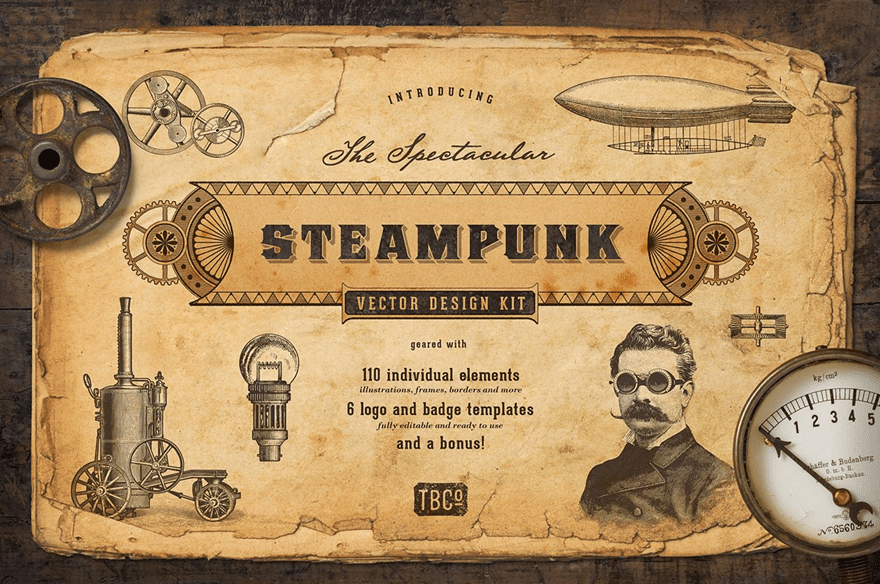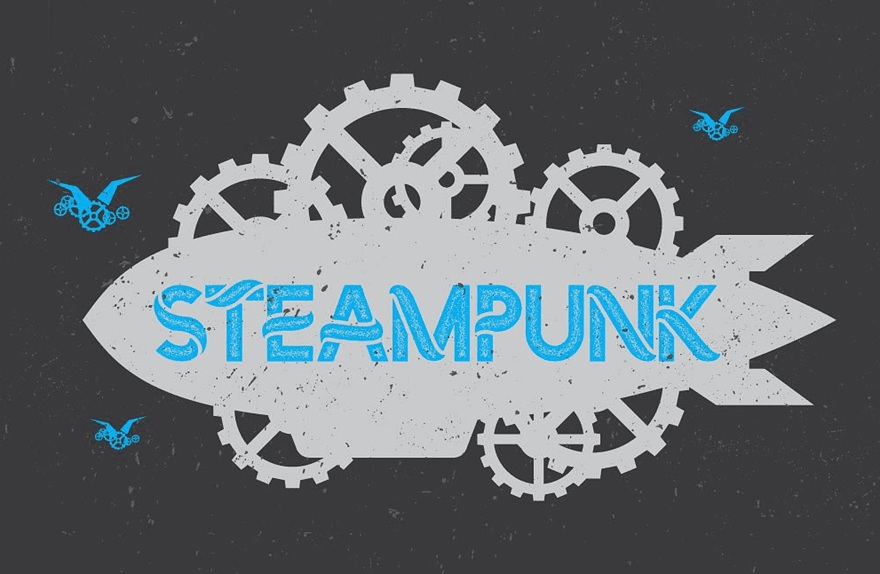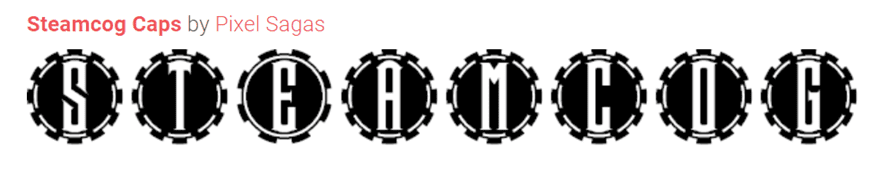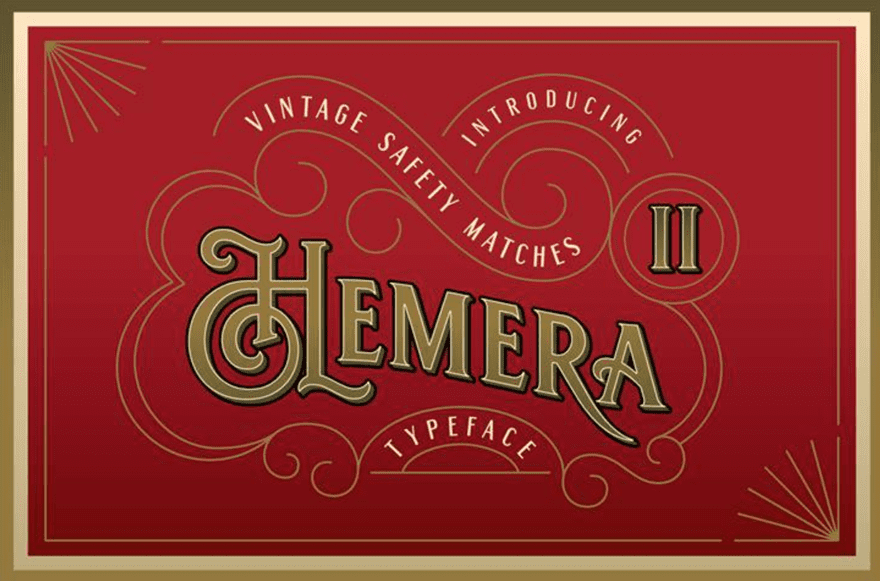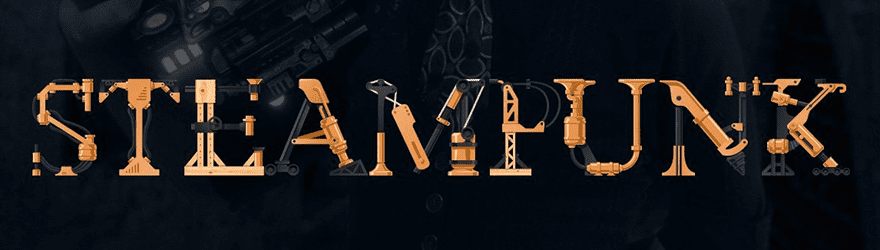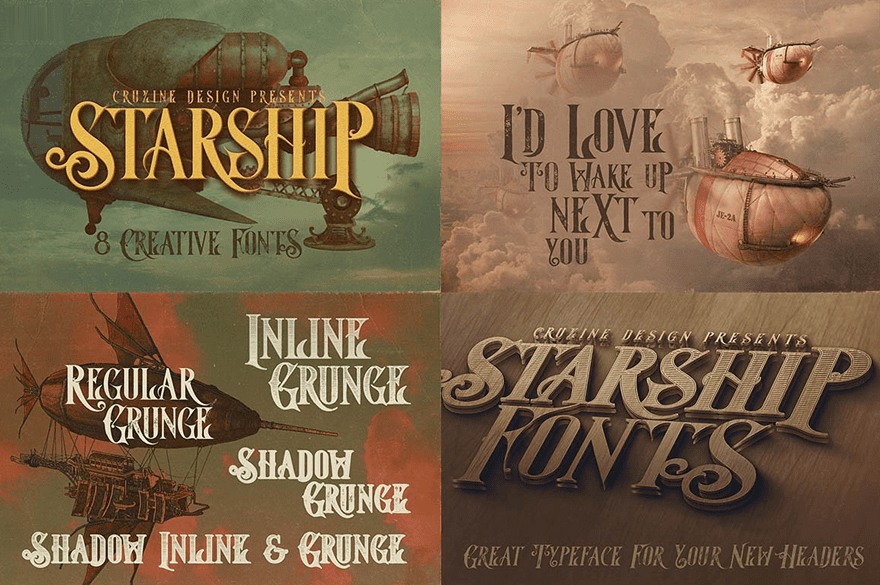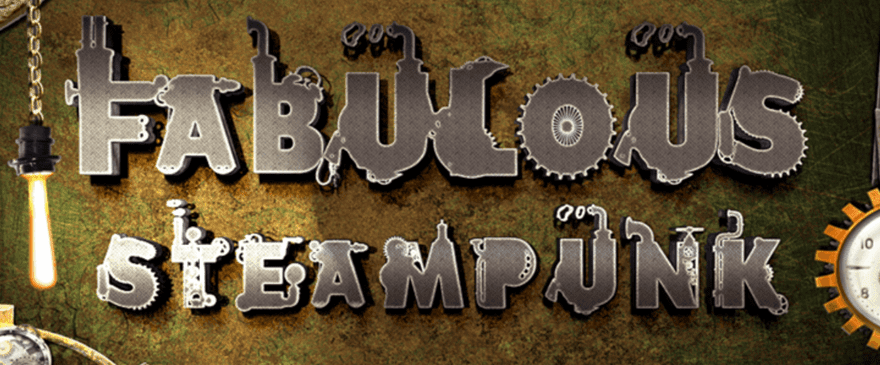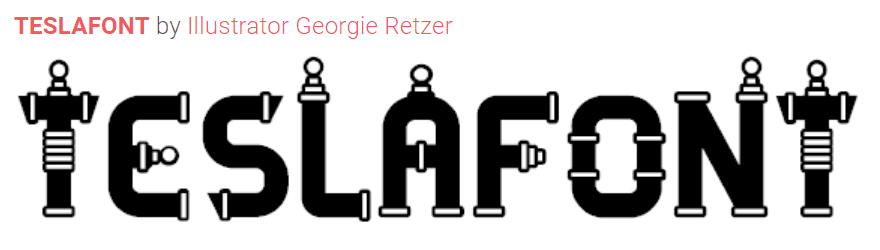
7+ Top Steampunk and Victorian Fonts
The Victorian Age is romanticized greatly. Literature and media often take notes from the aesthetic, industrial culture, design, and art of the time. Typefacing is no different. The steam age is known for beautifully stylized scripts and prints, and the popularity of steampunk, a sub-genre of science-fiction in which steam-power is the driving force of technology rather than petroleum, has led to a number of beautiful fonts and typefaces that you can use to give your designs an industrial-yet-refined look. We’re going to show you some of our favorites.
1. Steampunk
When making a list of the top steampunk fonts, it’s probably not a bad idea to start with one simply titled steampunk. After all, a steampunk font named steampunk has to capture what designers are looking for. Combining the industrial look that steampunk fans adore with the flowing and smooth elegance of the Victorian age, this stencil font is well worth the $10 price tag.
2. Steamcog Caps
Steamcog Caps is a really interesting font. It’s not the kind of font that you really type that much with. Almost an icon font, Steamcog Caps is fantastic for accents and decoration and for using as drop-caps in your designs. Because it’s an all-caps font, there may not be a ton of variation, but the unique gear/cog shape and the inclusion of basic punctuation symbols make this one worth a download since the price is absolutely right. Free.
3. Hemera II
We here at Elegant Themes don’t endorse the selling of snake-oil. But if you do decide to go that route and need to advertise your own snake oil tonic, Hemera II is the perfect vintage/Victorian font to draw people’s attention. Coming in with only the letters of the English alphabet, Hemera is best used for things such as logotypes and advertising, rather than long-form copy. It’s free, though, unlike all that snake oil it could help sell.
4. Steampunk Font
Another eponymous typeface, Steampunk Font is specifically designed for logotyping. The level of detail the designer put into this font is incredible, with multiple layers and colors and shades available, on top of the characters being made out of smaller pieces and put together like the machines they mimic. If you are going for that hardcore steampunk or industrial vibe with your design, you could do a lot worse than toss $14 toward this.
5. Starship (and 7 Other Font Families!)
This bundle is quite the bargain. For $8, not only do you get Starship (one of the top steampunk fonts out there, capturing the whimsy of the time period, the elegance of the culture, and the power of the technology), but you also get Hallowen, Zalora, Geno, Kiki, Skywalker, Meravin, and Venomous (all of which can be seen and demoed here). Within each of those 8 font families, you get a total of 49 fonts that you can manipulate to enhance and polish just about any project in any way you desire. Sure, free fonts are awesome. But 49 fonts for $8 is pretty close to free. And they’re all high-quality and easy to recommend.
6. Fabulous Steampunk
Rarely do people title their fonts as aptly as this one. It is truly a fabulous steampunk font. Taking a cue from the industrial and engineering side of the Victorian era, Fabulous Steampunk is both easy-to-read and useful. Like some of the other typefaces here, you probably don’t want to do long, small-pitch work with it. But you will do great things for logos and any projects that have the need for larger font sizes and have whitespace to spare. This particular steampunk font stands out for the attention to detail on the individual characters, such as cogs, gears, pipes, and steam itself functioning as serifs for some — but not all — characters. The exclusion of some characters having serifs makes those that do stand out that much more.
Additionally, the font includes multiple symbols so you won’t have to hunt down a secondary typeface to finish out your design. Fabulous Steampunk can be downloaded for free. The designer does request a $6 donation for commercial uses. That seems pretty reasonable to us.
7. Teslafont
A list mentioning the Victorian age or steampunk without reference to Nikola Tesla would be remiss and shirking its responsibilities. So here we are with the incredibly beautiful Teslafont. Designed after the inventor’s own “magnifying transmitters“, this font captures the retrofuturism that we love about steampunk and Victorian aesthetics. While not quite futuristic, this cont can be used to indicate forward-thinking and progress, just like its namesake did himself. Teslafont comes with a full 98 characters. However, only the letters of the alphabet are embellished with the Tesla coils themselves. As a free font, you definitely want to add this to your library.